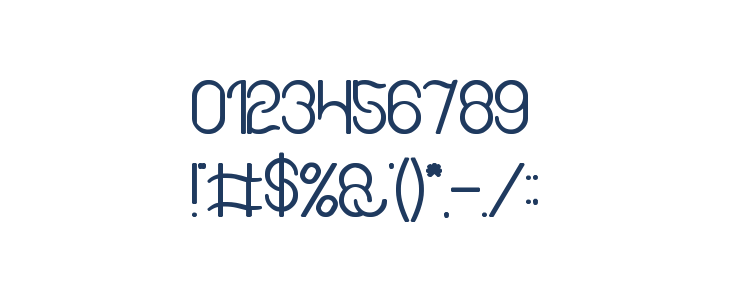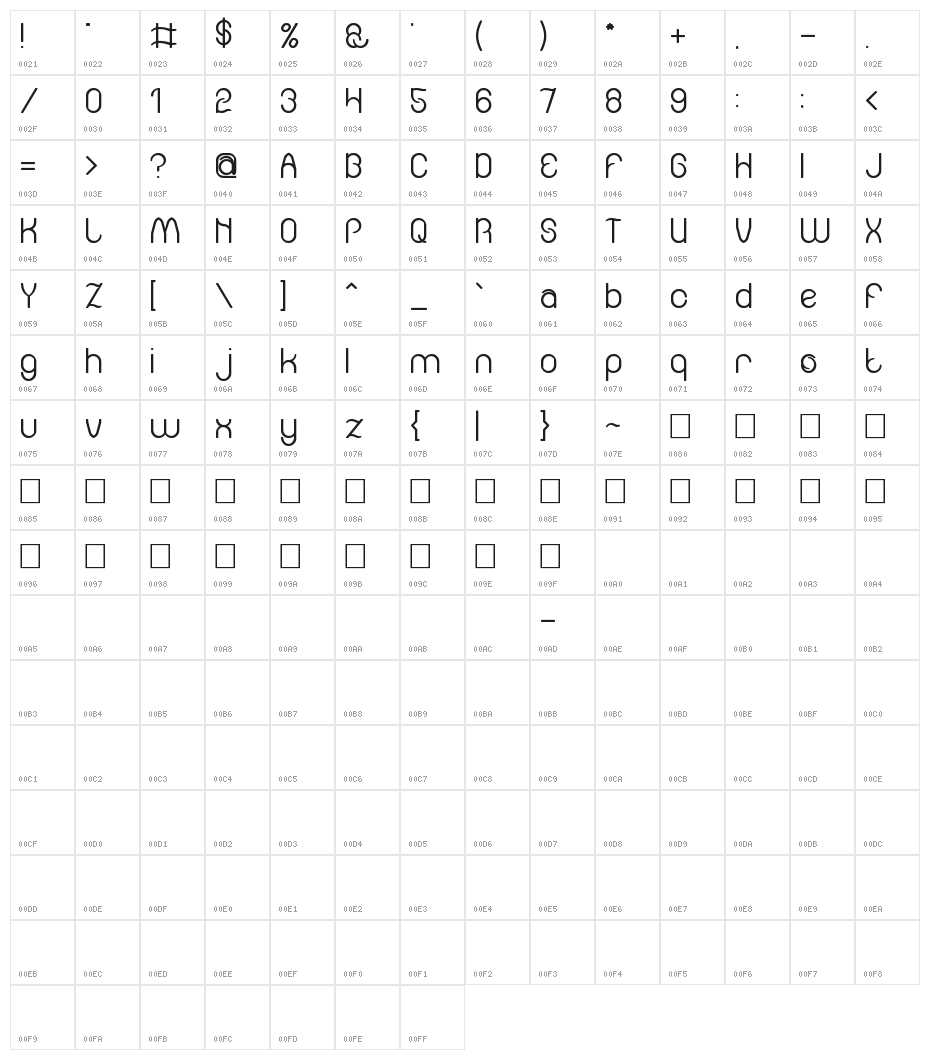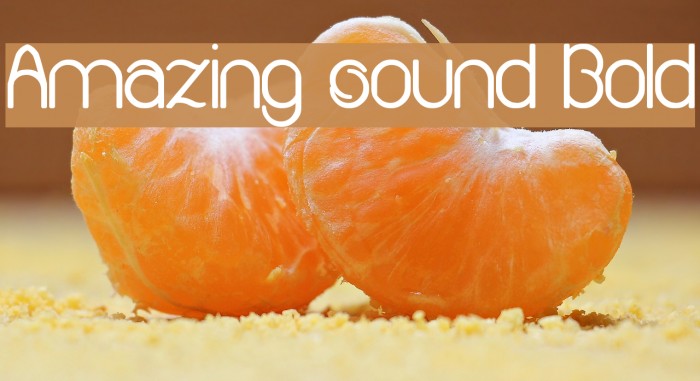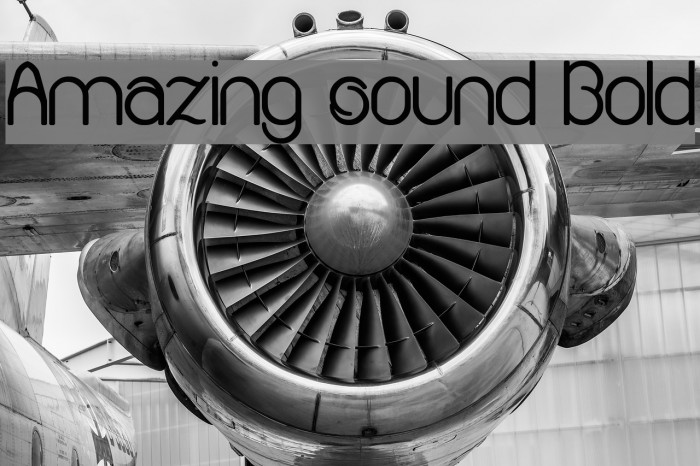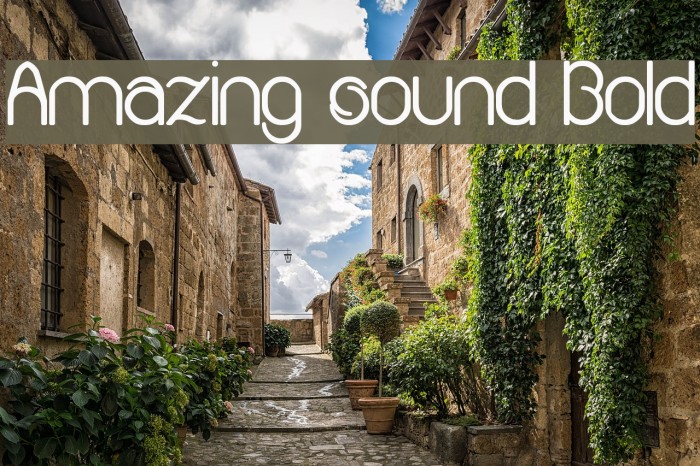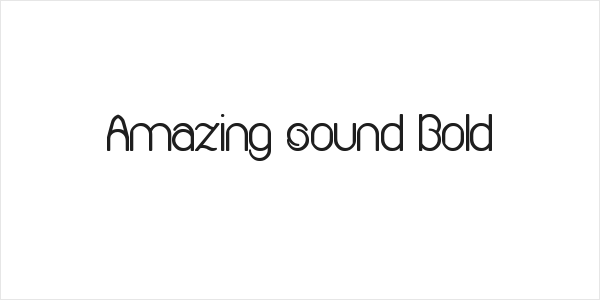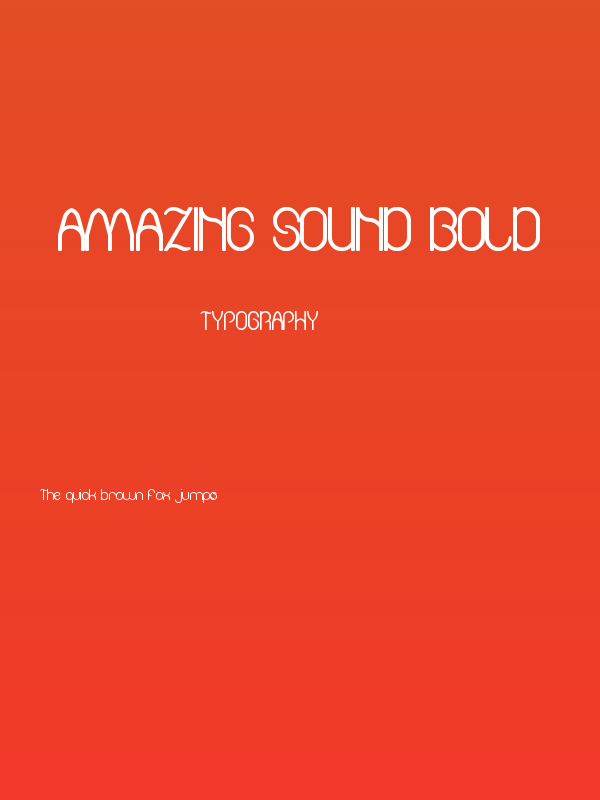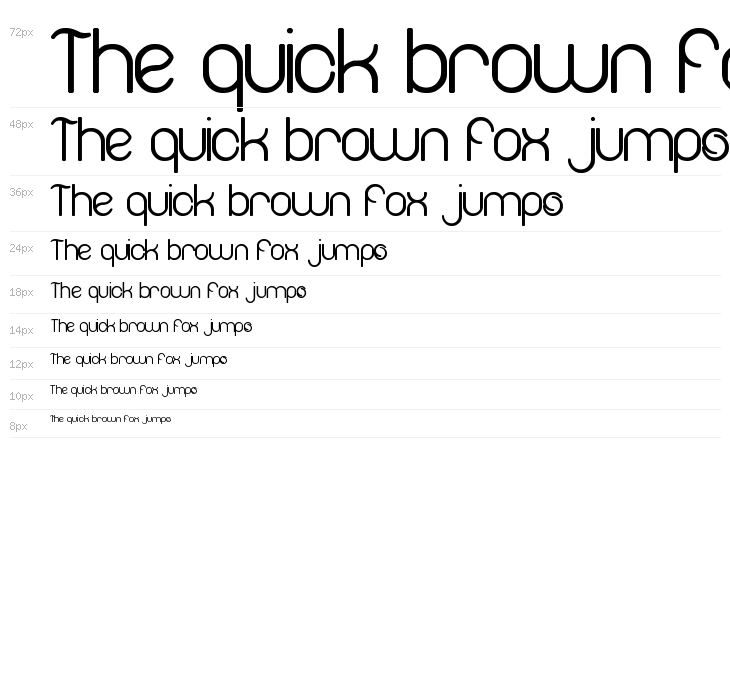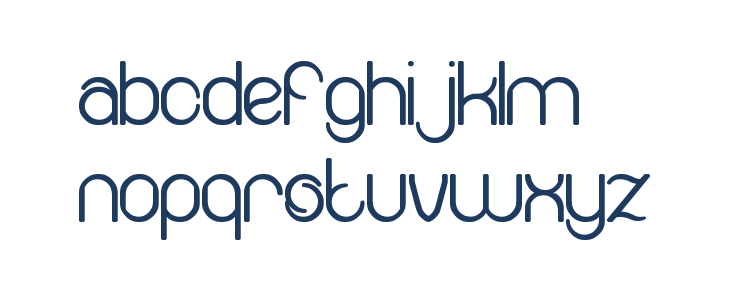
Amazing sound Bold Font
Amazing sound Bold Description
This font features a unique and modern design with a playful twist. The characters are rounded and have a consistent stroke width, giving it a clean and approachable appearance. The uppercase letters have a distinctive style with some characters featuring unexpected curves and angles, adding a touch of whimsy. The lowercase letters maintain the same playful aesthetic, with smooth curves and a friendly feel. Numbers and special characters are designed to match the overall style, ensuring a cohesive look across all text. This font is ideal for projects that require a modern yet approachable vibe.
| Proposed Projects | Ideal for branding, children's books, playful advertisements, and modern web design. |